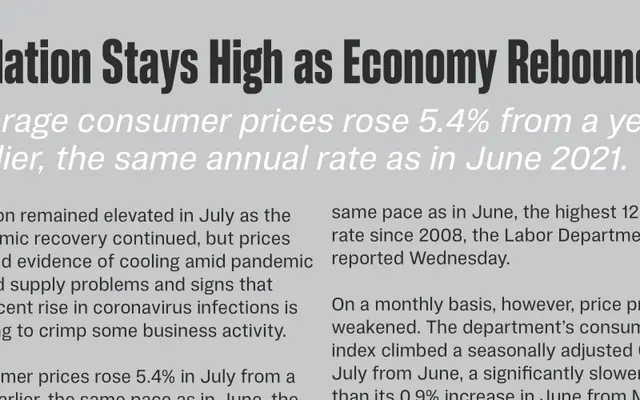
Halisa specimen from The Designers Foundry
A neutral grotesque sans spanning five widths and six weights, available as variable fonts with weight, width and italic axes.
Sixty static styles cover Condensed through Extended widths, each running from Thin to Heavy with matching italics, giving the family broad reach across editorial, branding and display work. Two variable fonts, Halisa Condensed VF and Halisa VF, consolidate the range into weight, width and italic axes. Opentype alternates include a hexagon dot, single-storey a and g, and alternate German double s and ampersand.
A neutral sans-serif with grotesque characteristics, available across five widths and six weights with italics, suggesting a utilitarian grotesque lineage designed for versatile typographic deployment.